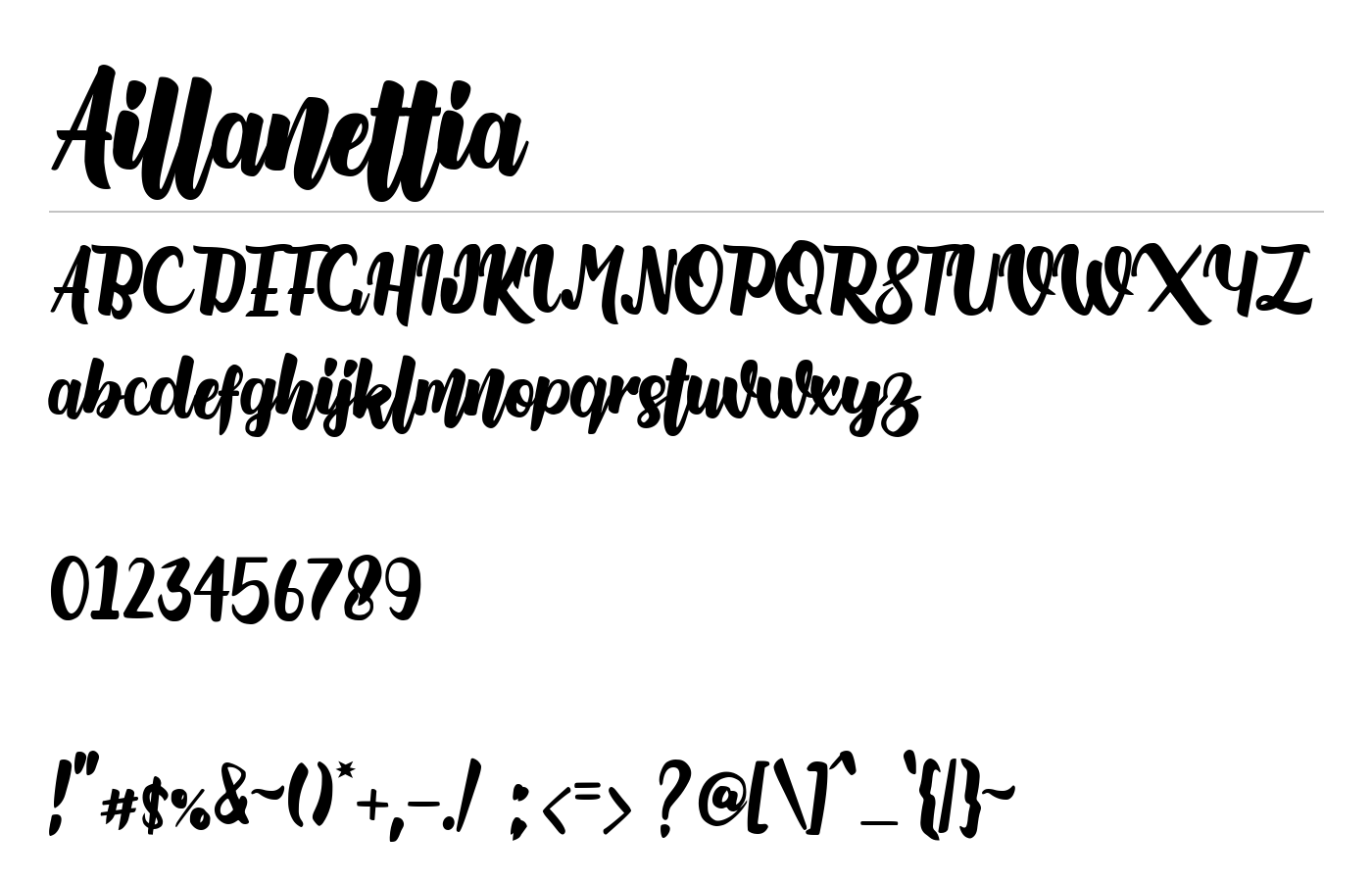
Aillanettia is a bold, script-style font with a lively and modern feel, featuring smooth, rounded strokes and a handwritten charm. Its upright, connected letterforms with a medium x-height and noticeable contrast make it perfect for creating a friendly yet stylish impression. This font works wonderfully for branding, invitations, and headlines where a warm, approachable, and energetic look is desired.
Aillanettia Font
About Aillanettia Font
| Font family | Aillanettia Font |
| Designer | Arie Iskandar |